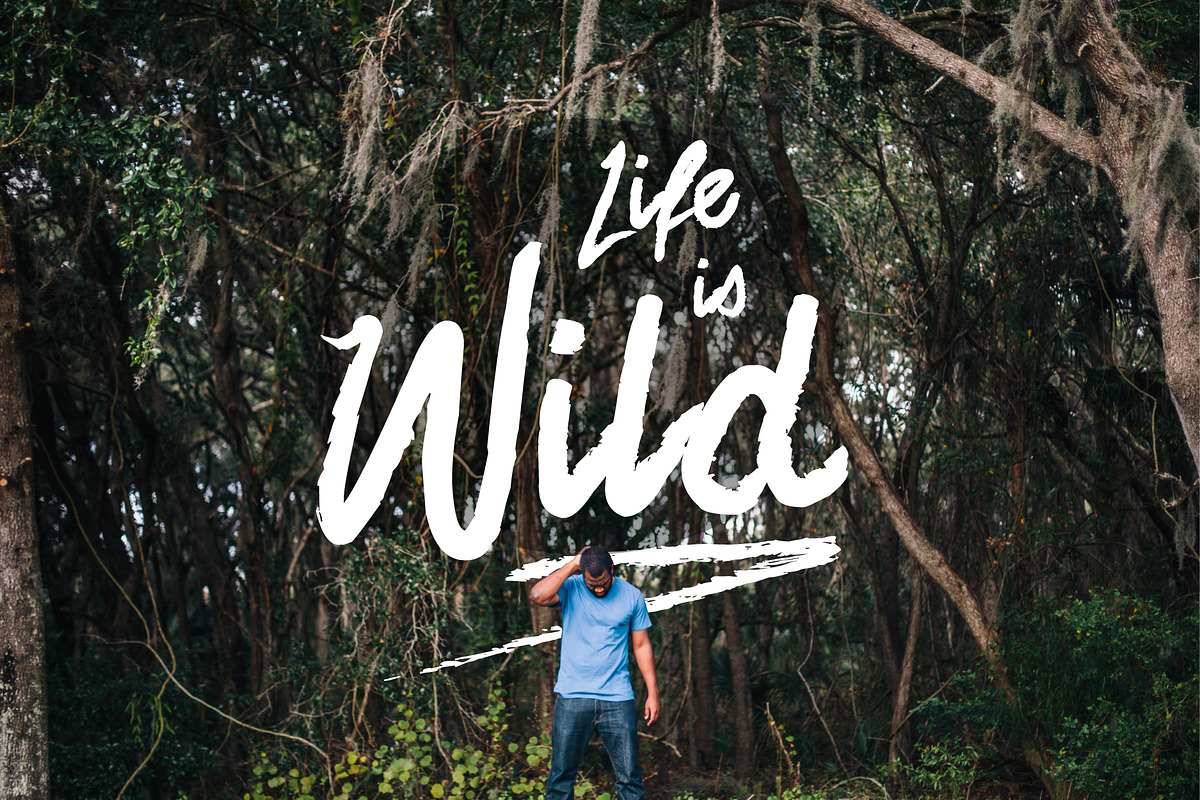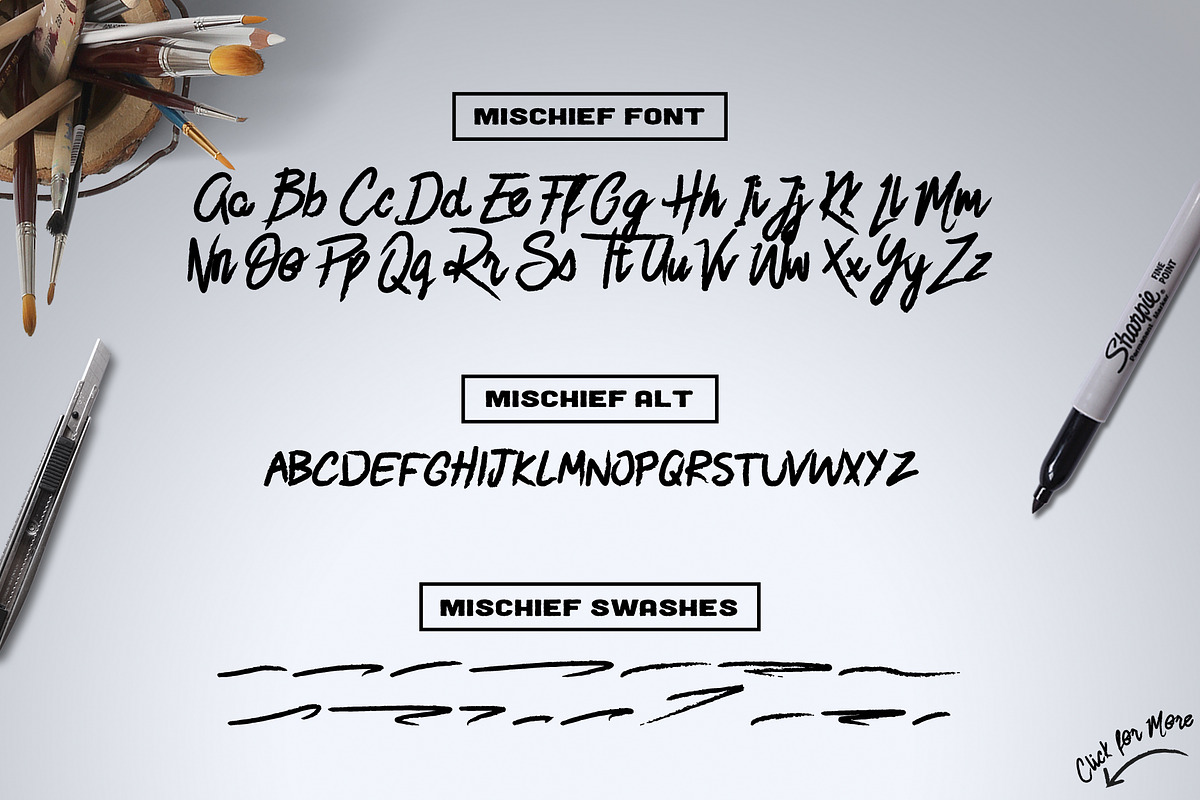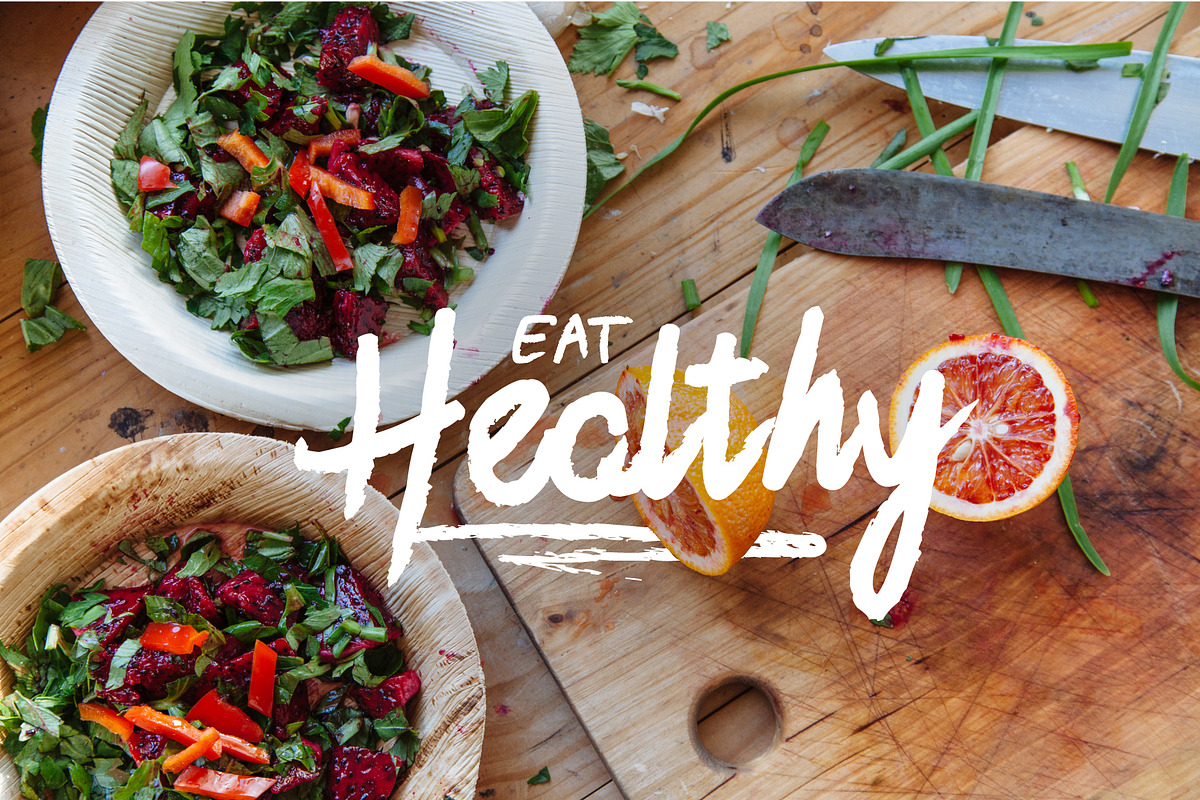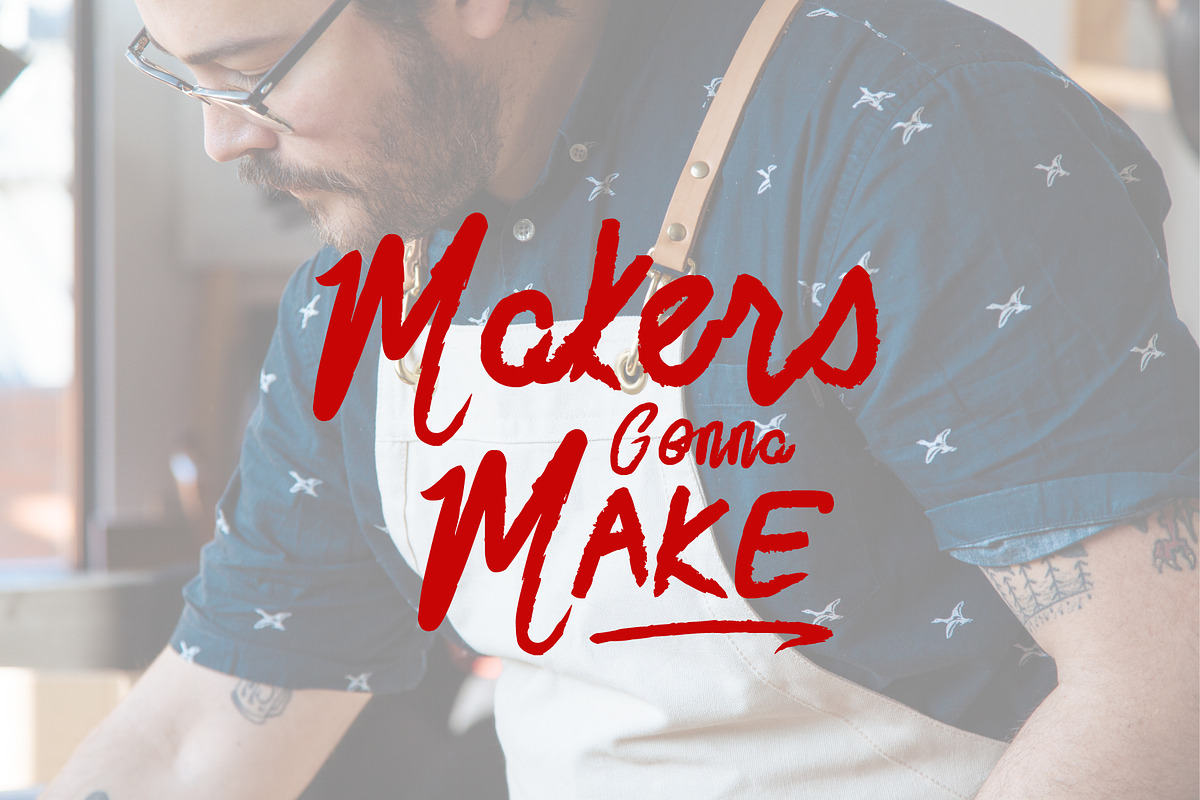
Mischief Font Duo
Mischief Font Duo by Flycatcher Design is a font selected for branding, posters, packaging, typography.
- • Mischief Alternate (another marker/brush font w/ its own language support characters)
- The font includes 26 capitals, 26 lowercase, full punctuation, and international language support.
- Mischief Regular
- Mischief Alternate
- Mischief Swashes
Why Mischief Font Duo is worth a look
Mischief Font Duo by Flycatcher Design fits naturally into Branding, posters, packaging, typography.